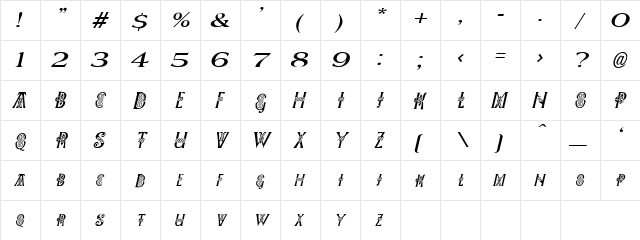
Deseigner Fonts Regular
Design Context for Deseigner Fonts Typeface
Deseigner Fonts is a composed and adaptable typeface that performs quietly and consistently across a wide range of design contexts.